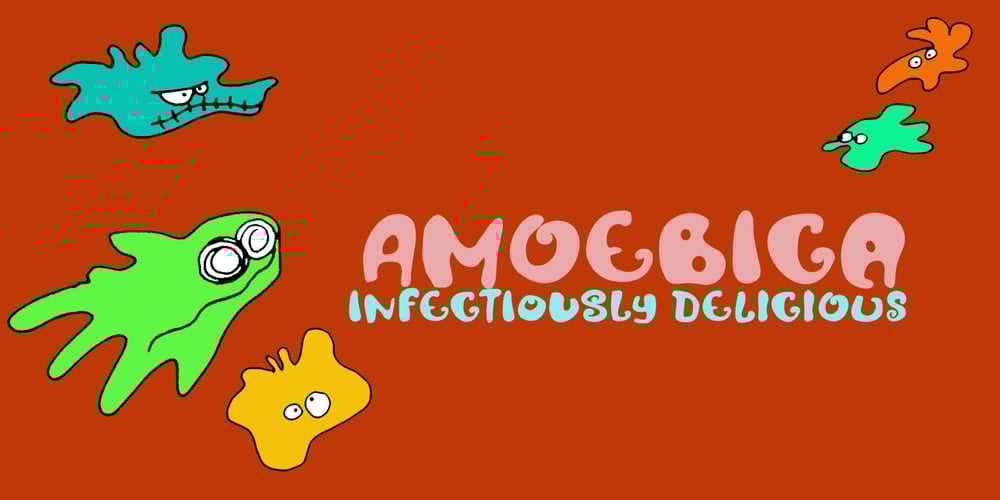
Amoebica Font Family was designed by David Kerkhoff and published by Hanoded. Amoebica contains 1 styles and family package options. Amoebica font was created during a nasty bout of the flu. If you think it looks weird, well, I must have been hallucinating when I drew the glyphs! Amoebica is a fun, weird, unusual, happy, crazy kind of font which comes with all diacritics.